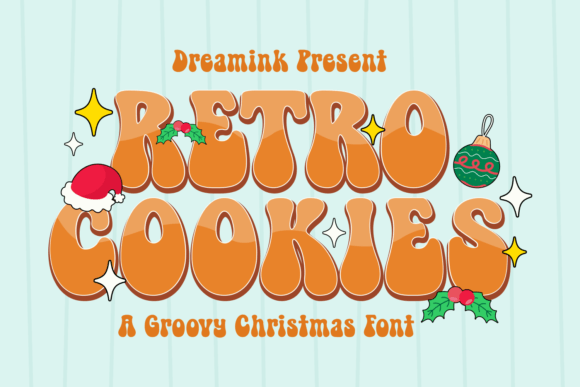
Retro Cookies font is a festive and groovy handwritten typeface that captures the joy of the holiday season. With its bubbly letters and retro-inspired charm, this font adds a delightful and playful touch to your Christmas designs. Use it for holiday cards, gift tags, or any project that needs a dash of nostalgic cheer. Spread the holiday spirit with Retro Cookies!